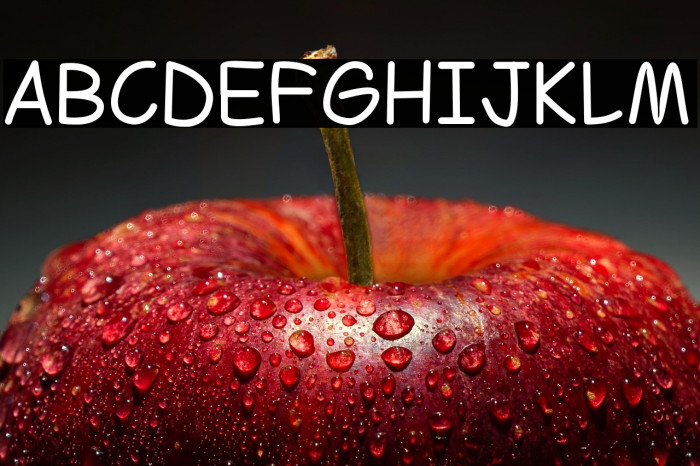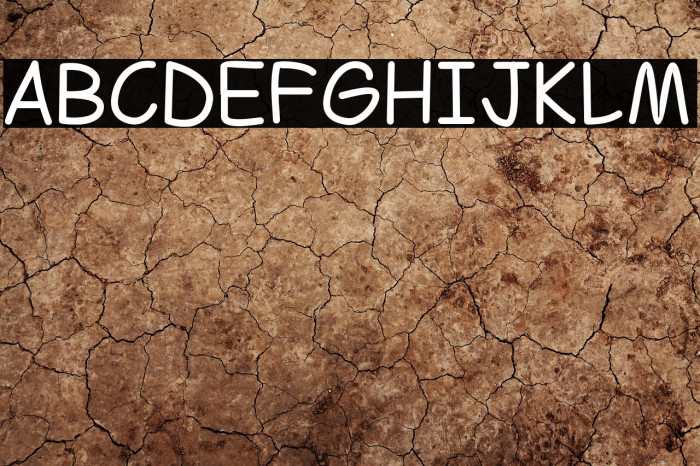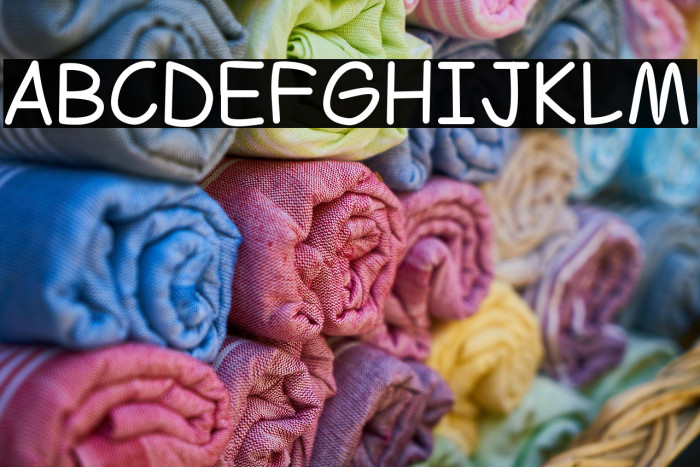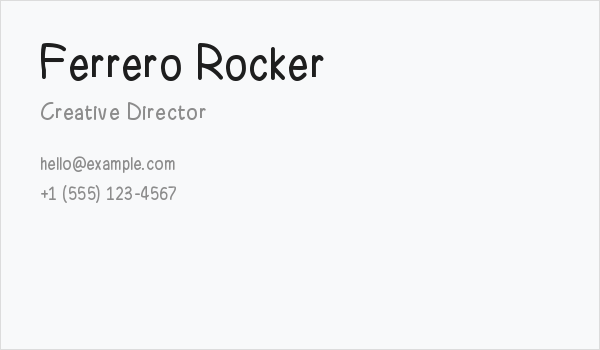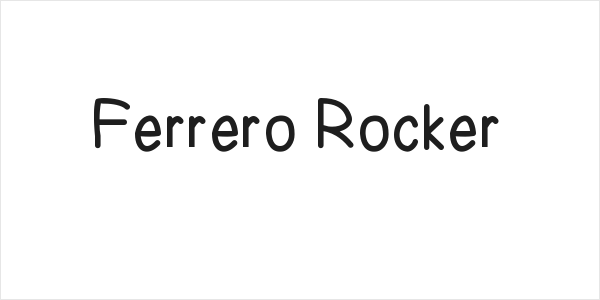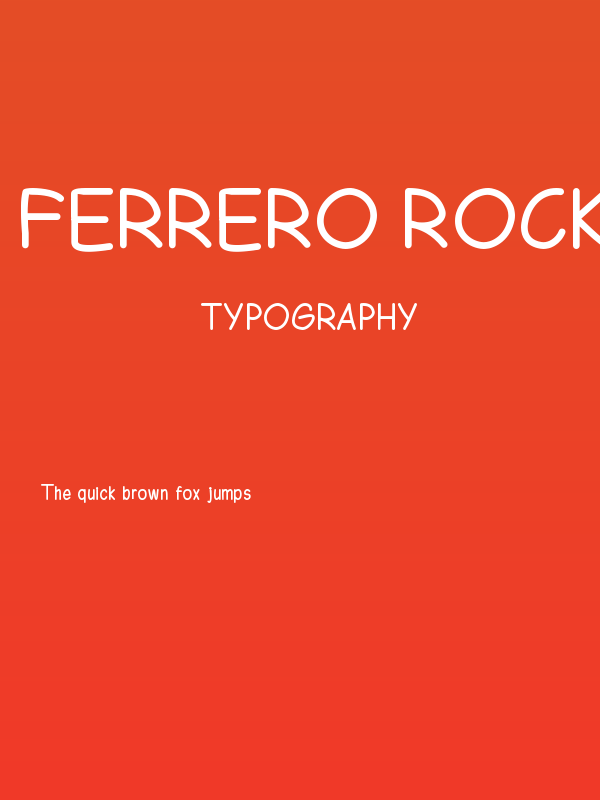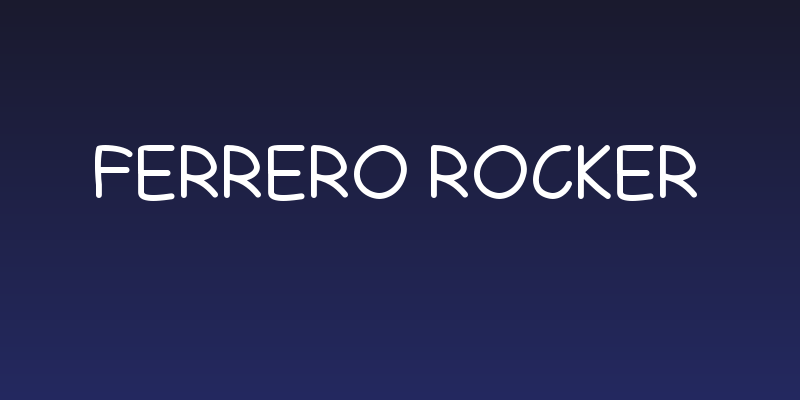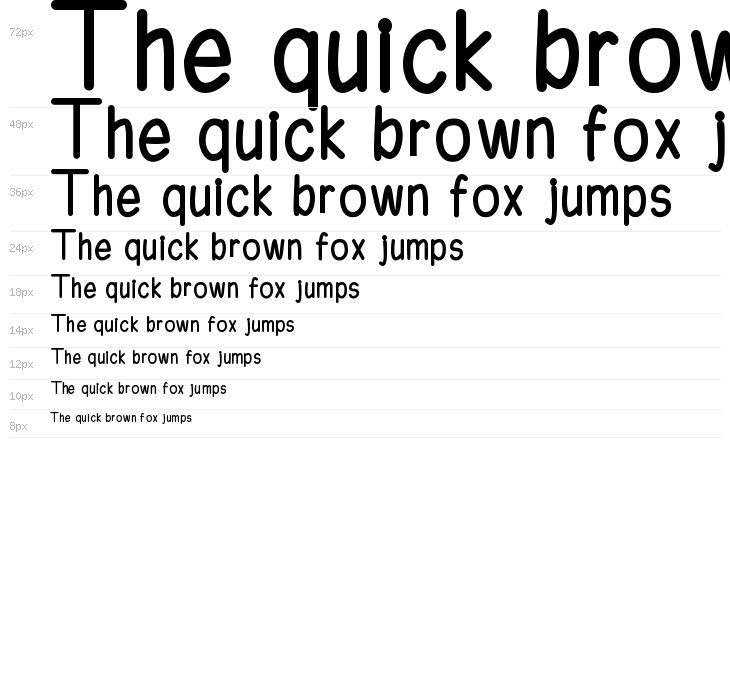
Ferrero Rocker Font
Ferrero Rocker Description
This font features a playful and rounded style, characterized by its smooth curves and friendly appearance. The letters are slightly elongated with a consistent stroke width, giving it a casual and approachable feel. The uppercase and lowercase letters maintain a uniformity that enhances readability, while the numerals and special characters are designed to match the overall aesthetic. The font's simplicity and charm make it suitable for a variety of creative projects.
| Proposed Projects | Ideal for children's books, playful branding, greeting cards, and casual invitations. |